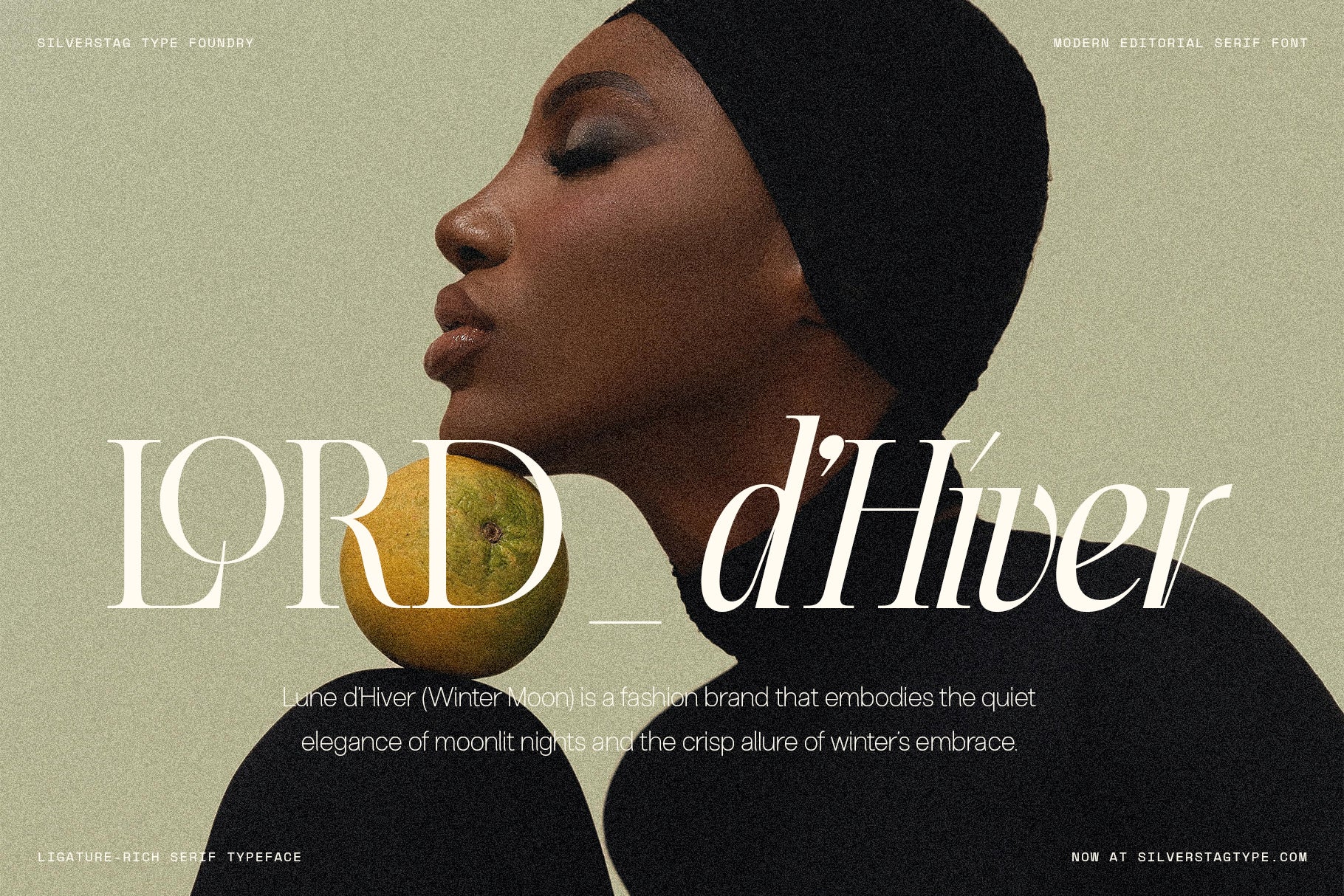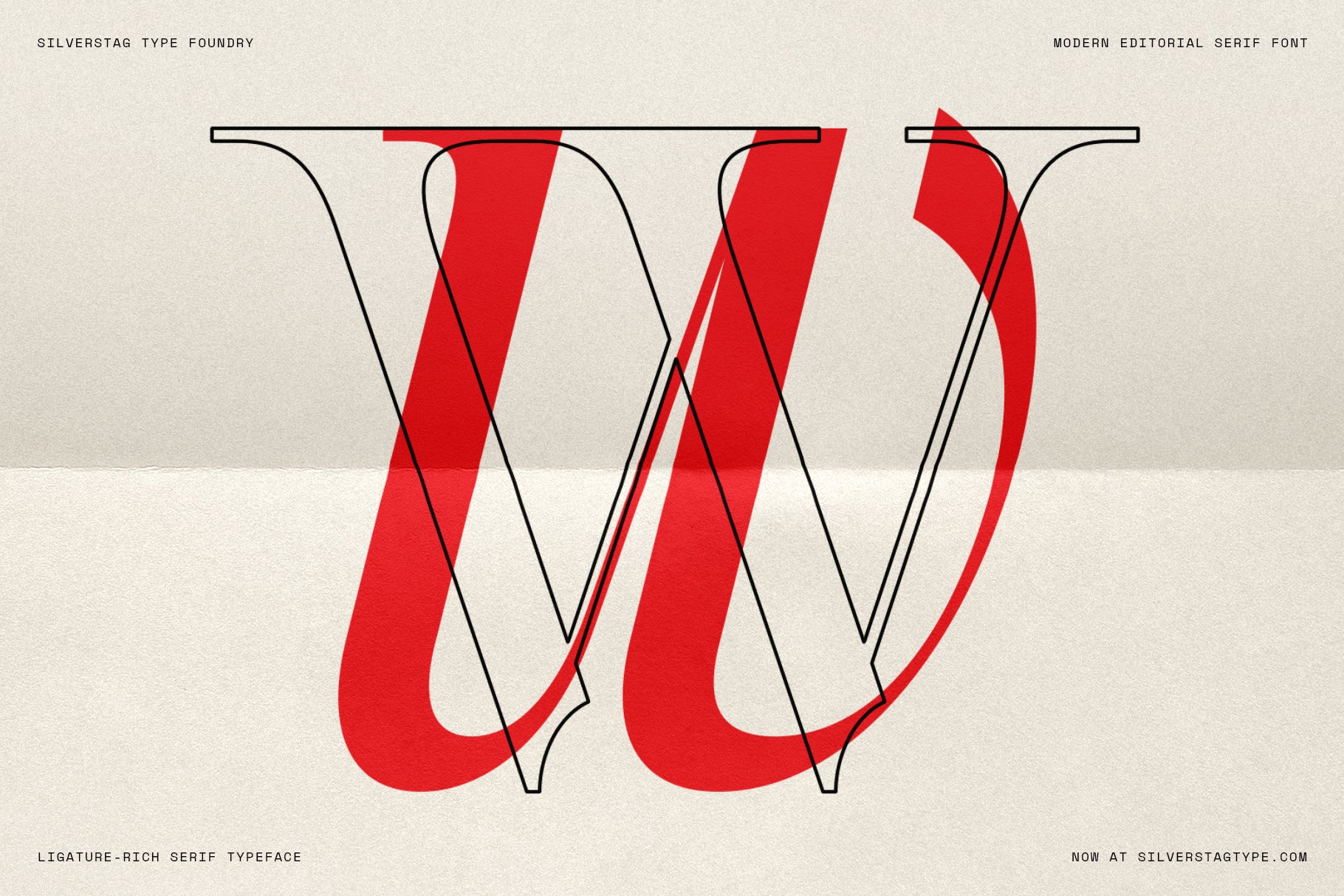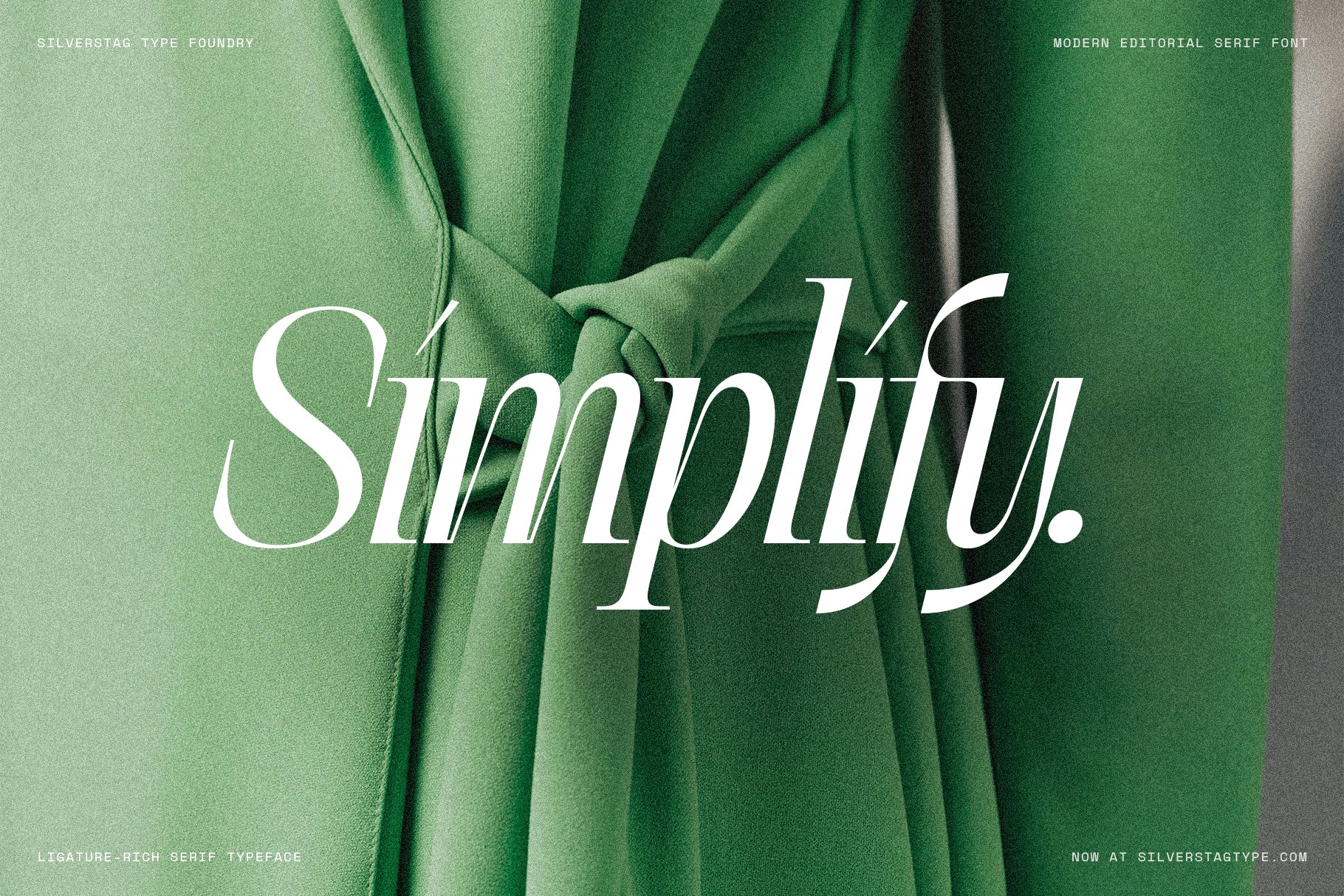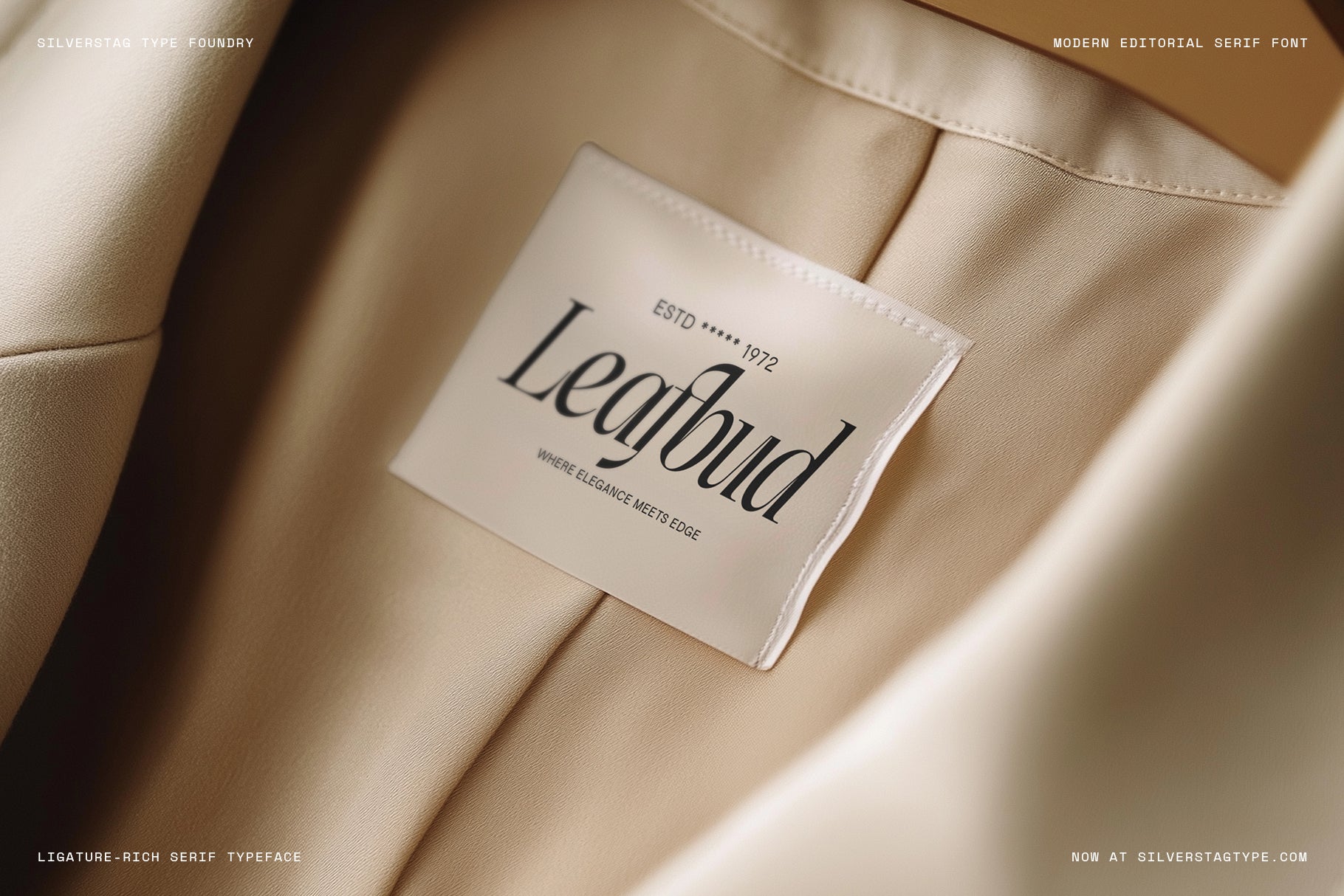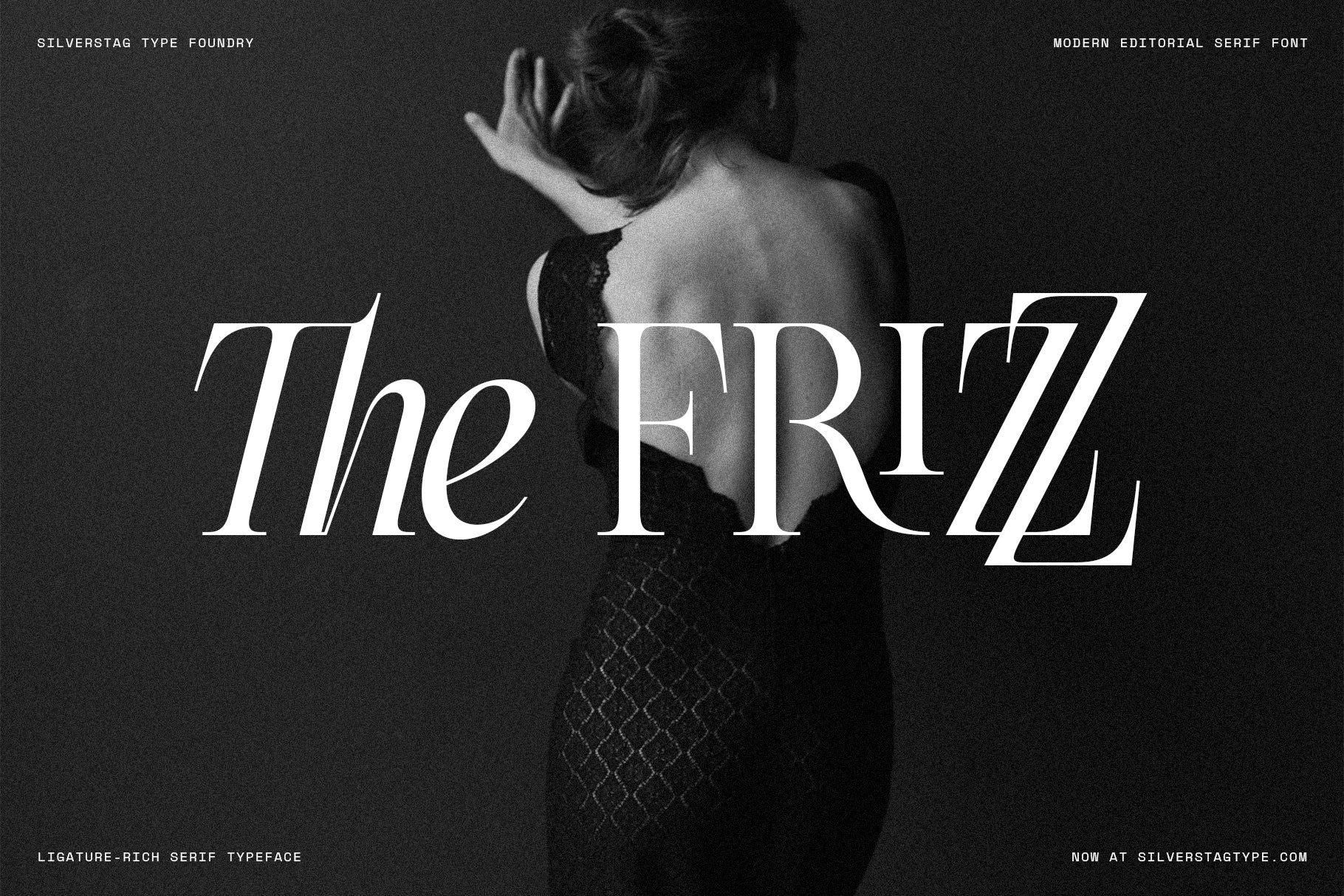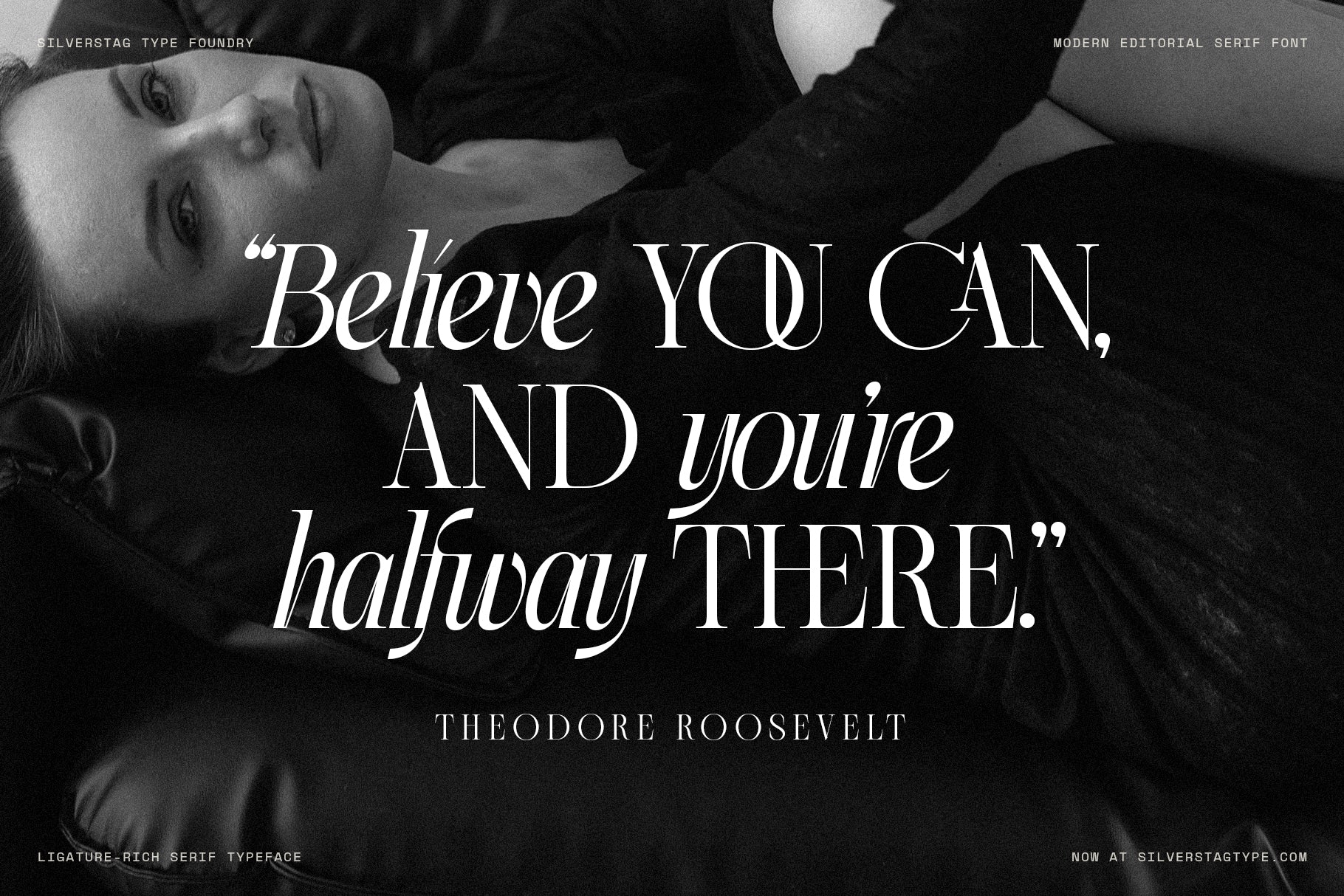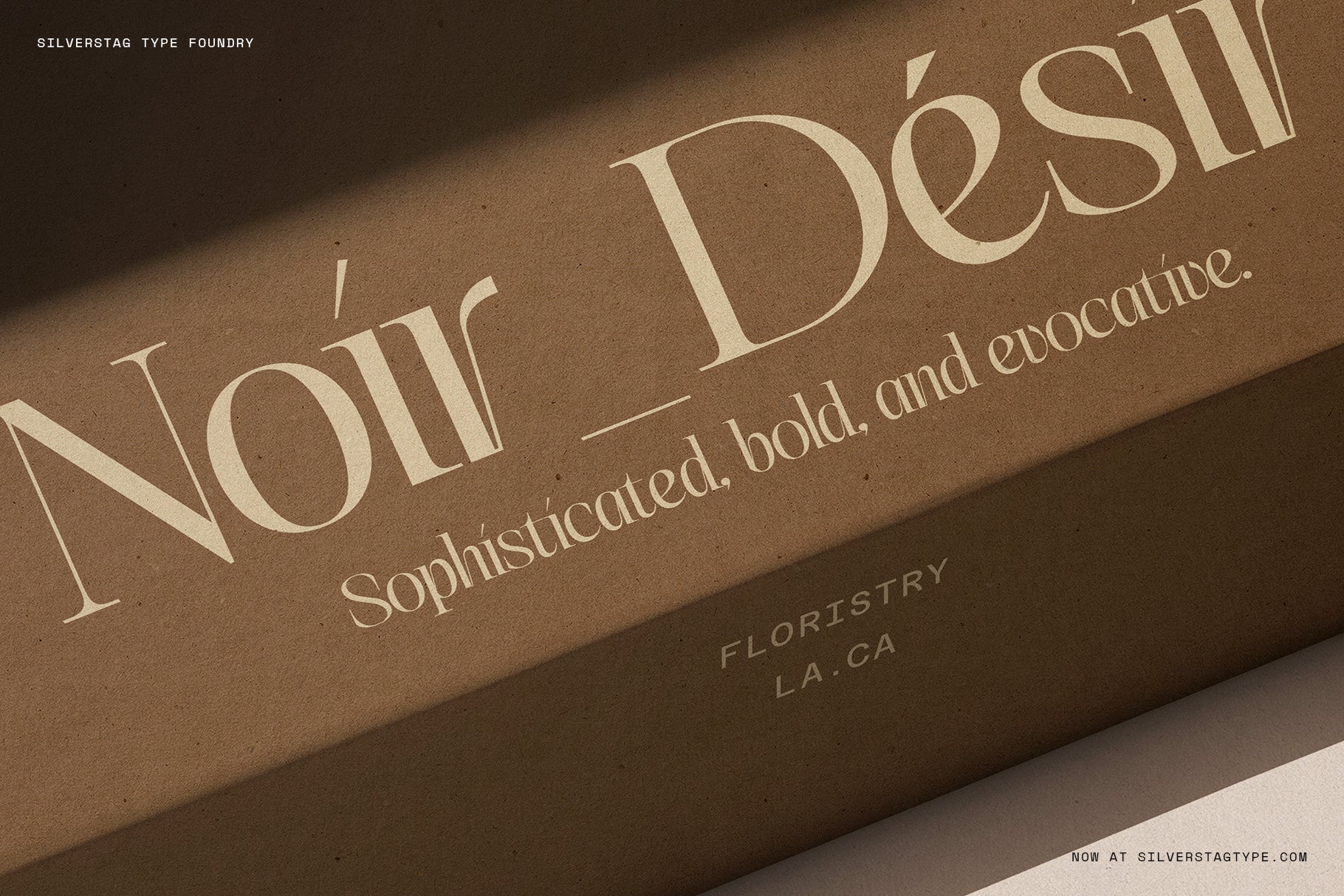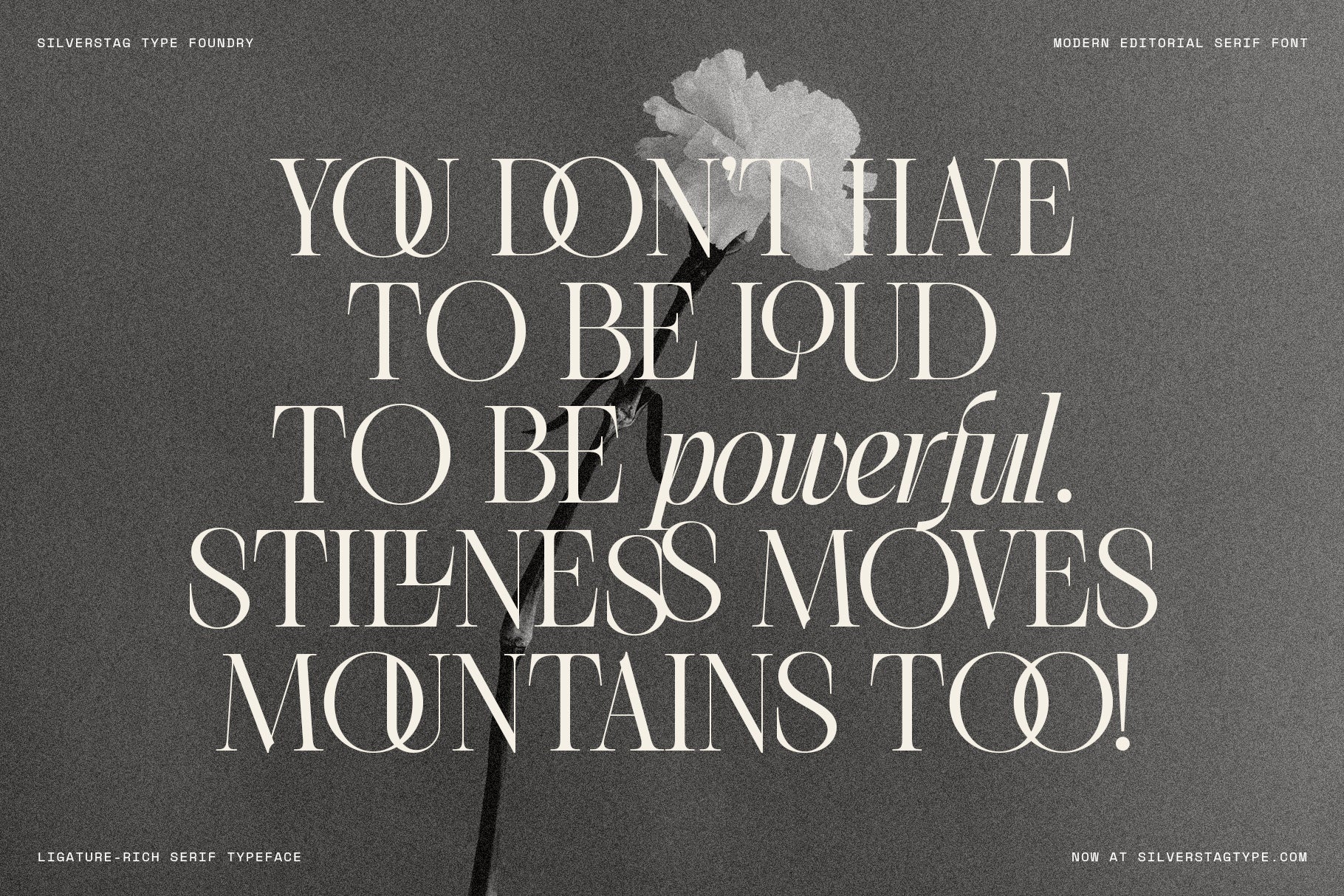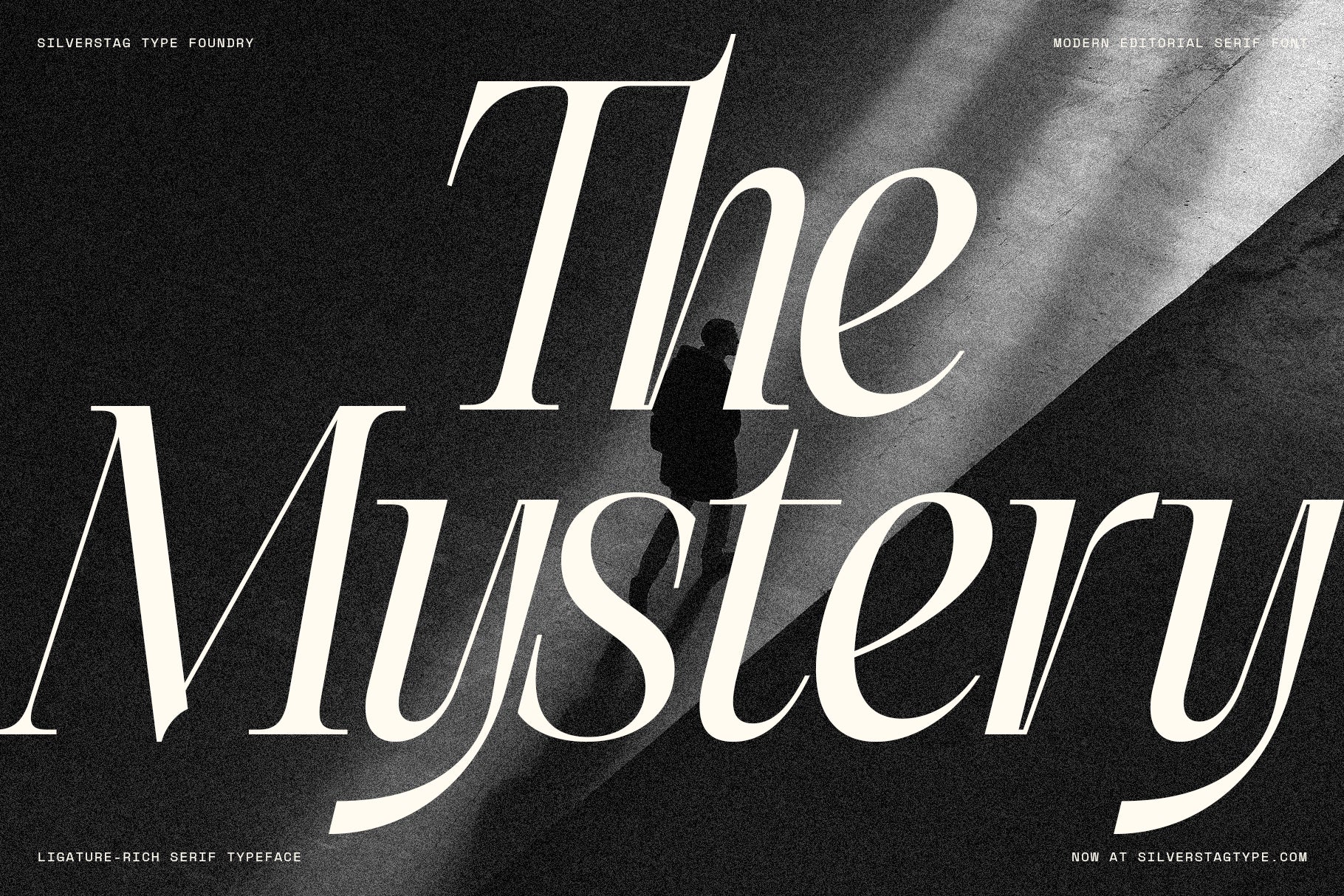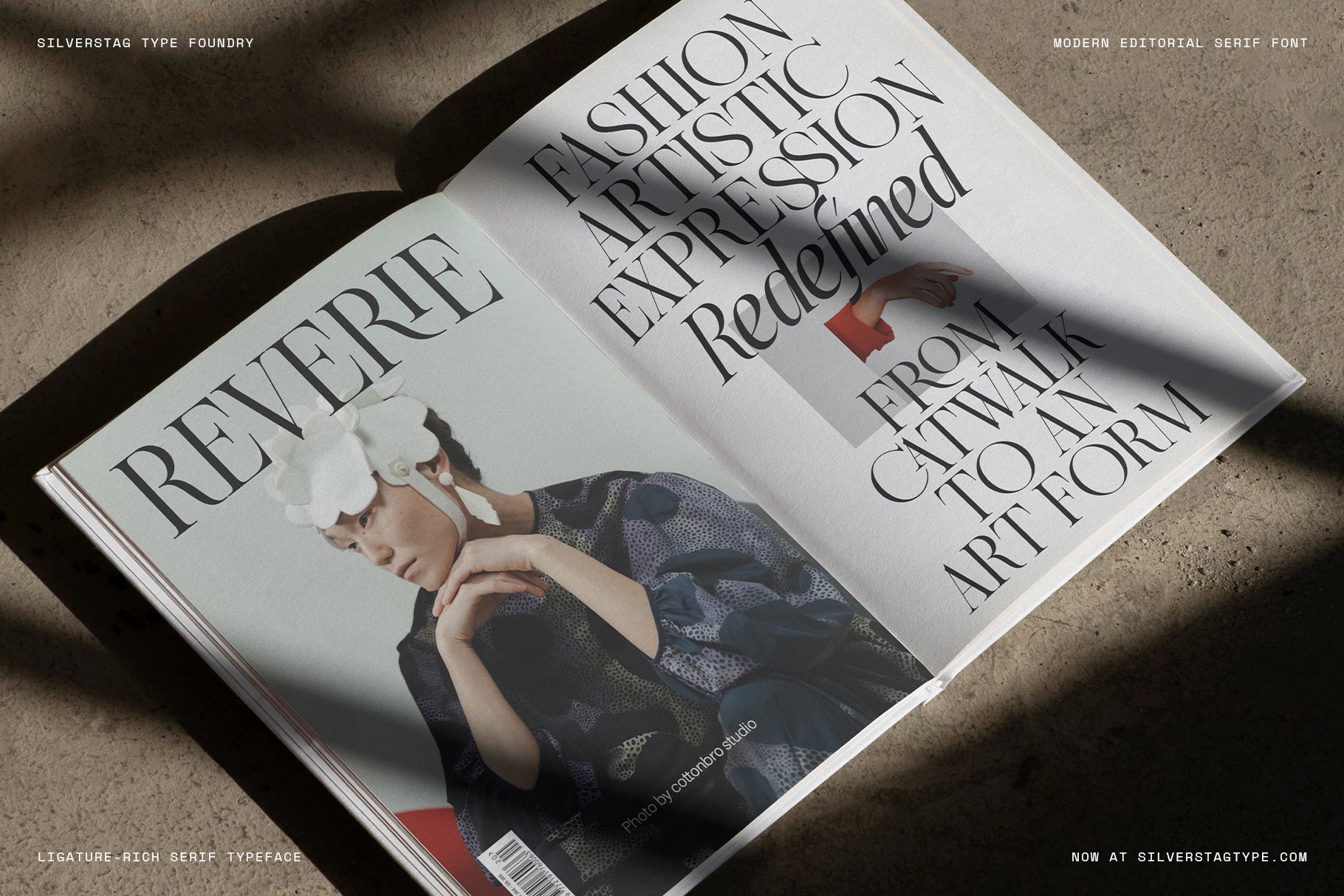
SLTF The Elfkin Editorial is a modern serif typeface designed for impactful editorial work, stylish branding, and expressive typographic storytelling. With its elegant proportions, high contrast, and a beautifully crafted italic version, Elfkin brings sophistication and character to every project.
This typeface includes over 80 ligatures and alternates...
SLTF The Elfkin Editorial is a modern serif typeface designed for impactful editorial work, stylish branding, and expressive typographic storytelling. With its elegant proportions, high contrast, and a beautifully crafted italic version, Elfkin brings sophistication and character to every project.
This typeface includes over 80 ligatures and alternates for added personality and smooth visual rhythm. Whether you’re designing a magazine spread, a timeless logo, or an upscale packaging system, Elfkin offers just the right amount of flair. The italic version is especially expressive – perfect for quotes, subheadings, and refined details.
Supporting over 100 languages and packed with OpenType features, SLTF The Elfkin Editorial is a perfect match for modern designers seeking a classic-meets-contemporary serif with editorial flair.